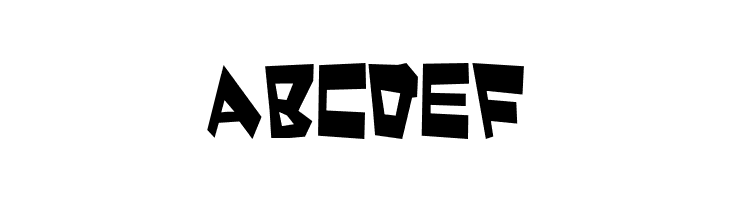
Cruch Branch Regular Font
- Font: Cruch Branch Regular
A bold, angular font with a dynamic, geometric style.
A bold, angular, and geometric font with a condensed width and dynamic style.
A bold, angular font with a dynamic and energetic style.